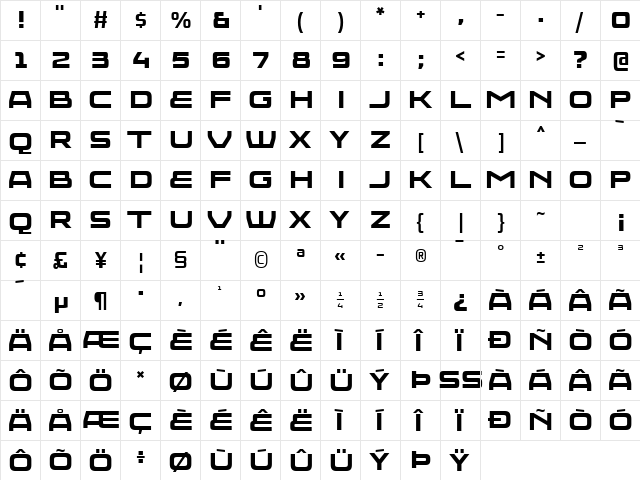
Injekuta Bold
Design Context for Injekuta Typeface
Injekuta offers clean, dependable letterforms without strong stylistic allegiance, making it a practical choice for designers who need flexibility. The heavy weight commands attention and anchors typographic hierarchies.